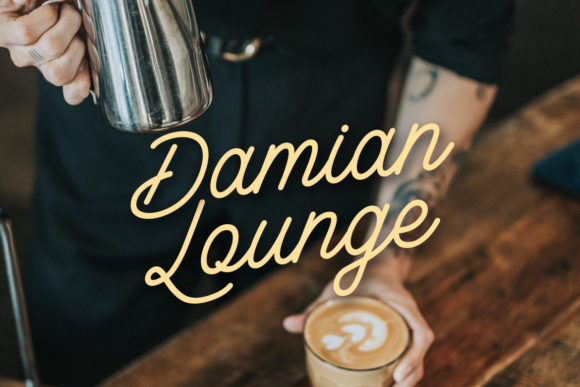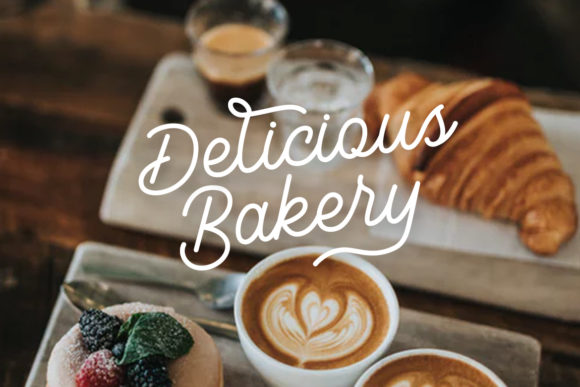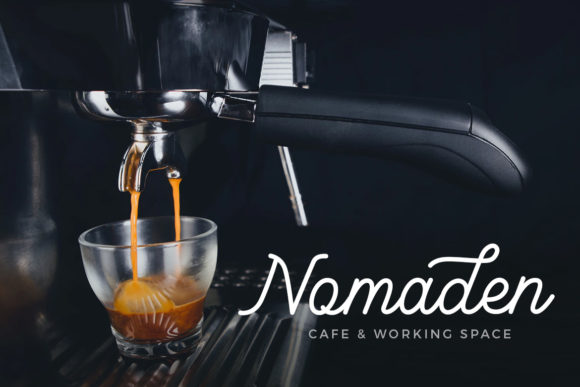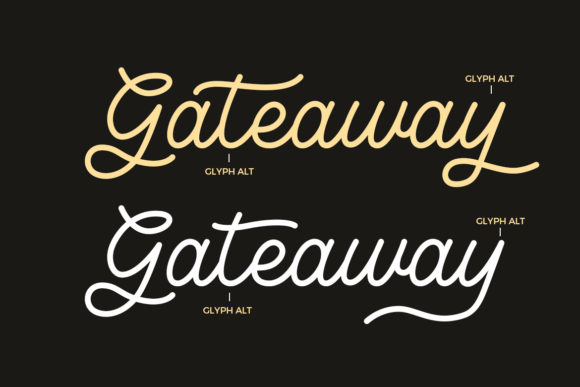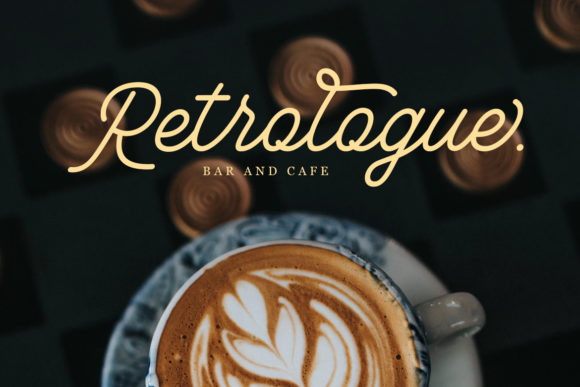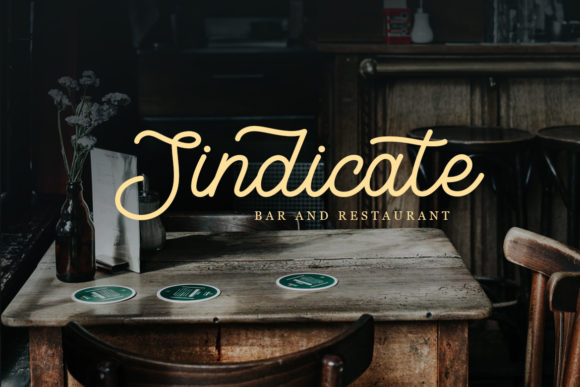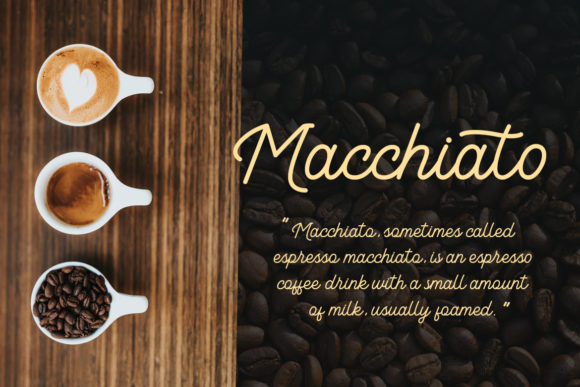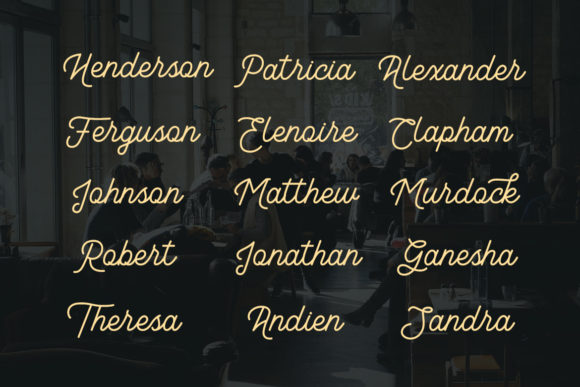
Vontage Font
About Vontage Font
The Vontage is a stylish handwritten script font. It can be used for logos, headers, titles, and every other design that needs an elegant typeface.